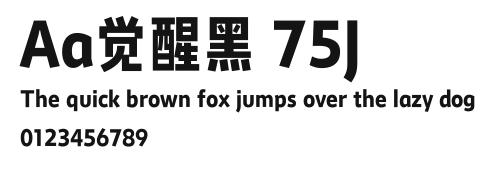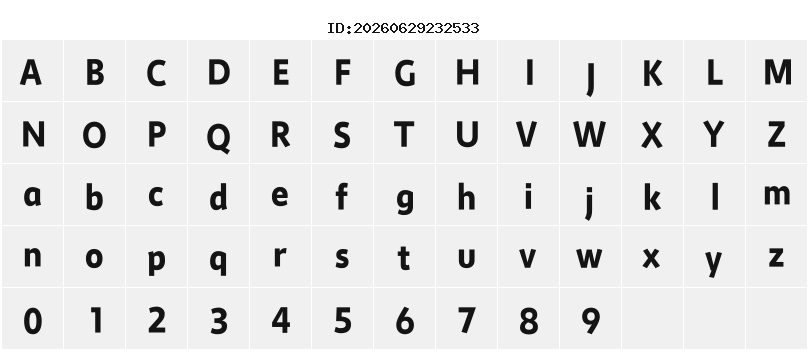
Aa觉醒黑 75J Preview
• Font Name: Aa觉醒黑 75J
• Font Style: 常规
• Full Font Name: Aa觉醒黑 75J
• PostScript Name: AaJueXingHei75J
• Designer: Aa
• Description: AaJueXingHei 75J is a fantastic font with excellent features designed for user interfaces and electronic communications.
About Aa觉醒黑 75J.ttf
Aa觉醒黑 75J.ttf is a modern, elegant sans-serif font designed for ultimate readability and visual harmony. Perfect for branding, headlines, web design, and print materials.